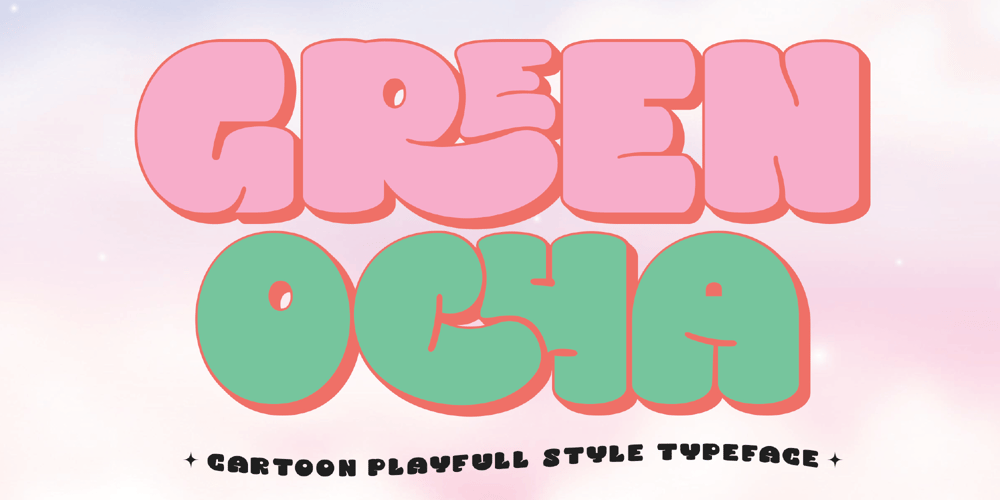
Green Ocha
Green Ocha font
Green Ocha Font Family was designed by Achmad Yani and published by Flawlessandco. Green Ocha contains 1 styles and family package options. Green Ocha – Cartoon Font, Toon Font, Playful Font, Groovy Font, Fun Font, Bold Font, Modern Font, Branding Font, Logo Font, Canva Font, Cricut Font, Cursive Font, Procreate FontIntroducing “Green Ocha” is a cartoon playful style typeface. Step into a world of whimsy and fun with “Green Ocha,” a playful cartoon font that’s bursting with groovy energy. With its quirky design and cheerful demeanor, Green Ocha adds a splash of personality to any project, whether it’s for children’s books, comic books, or creative branding.Keywords: Cartoon Font, Groovy FontThere’s some connected letters and some alternates that suitable for any graphic designs such as branding materials, t-shirt, print, business cards, logo, poster, t-shirt, photography, quotes .etcThis font support for some multilingual. Also contains uppercase A-Z and lowercase a-z, alternate character, numbers 0-9, and some punctuation.If you need help, just write me! Thanks so much for checking out my shop!